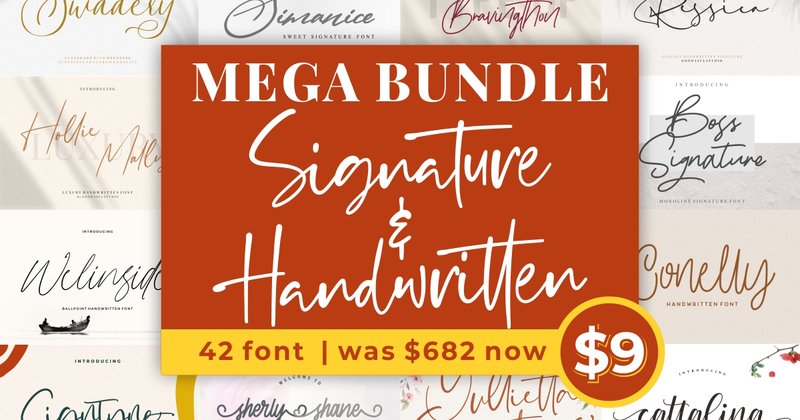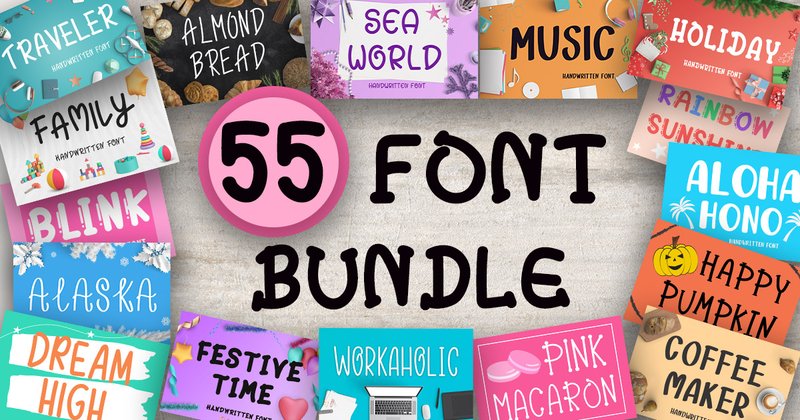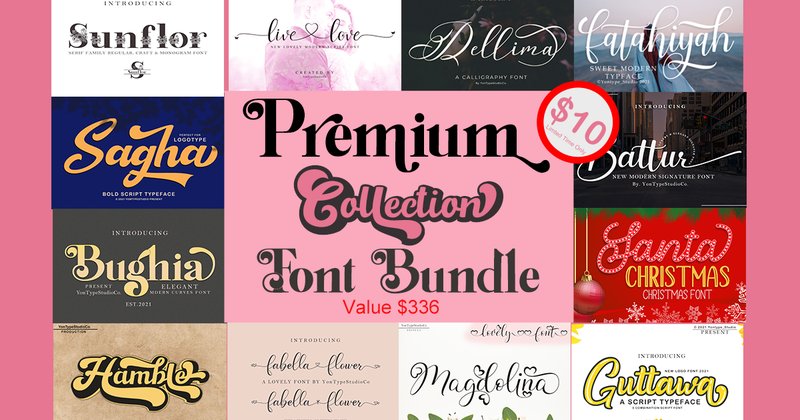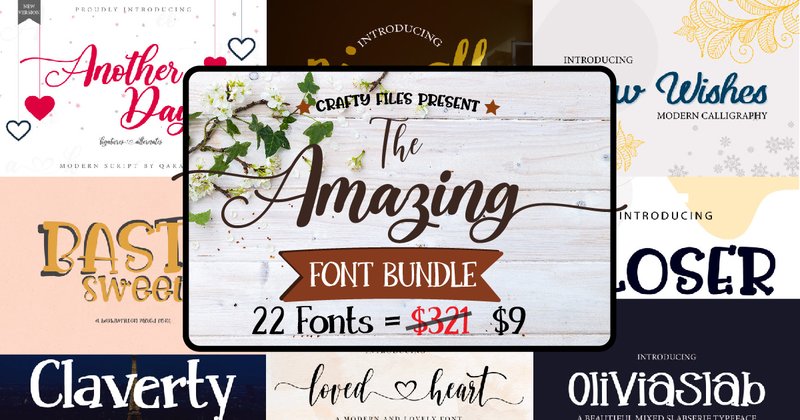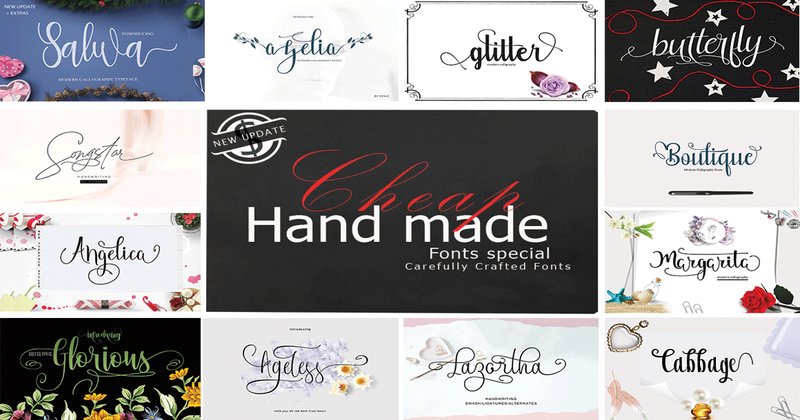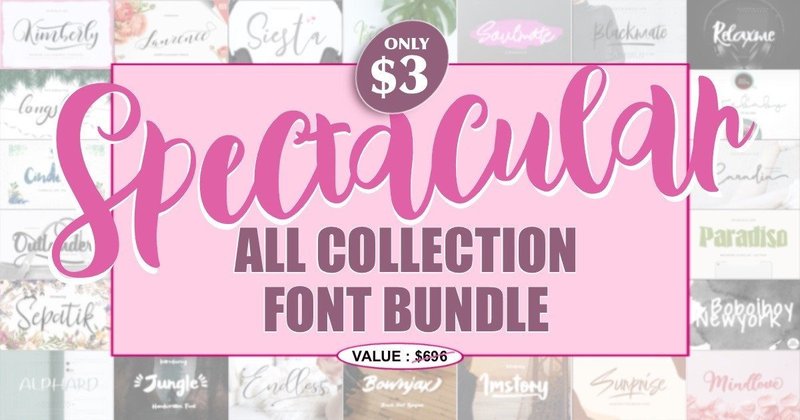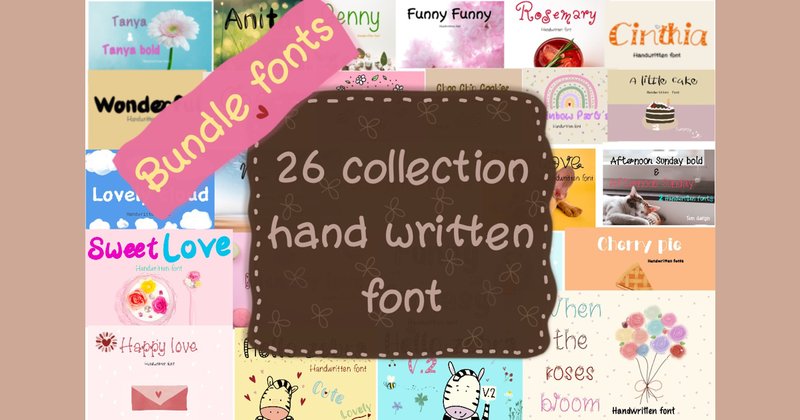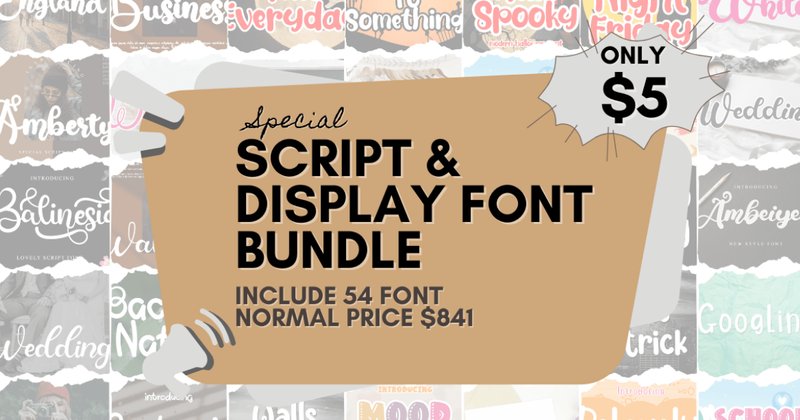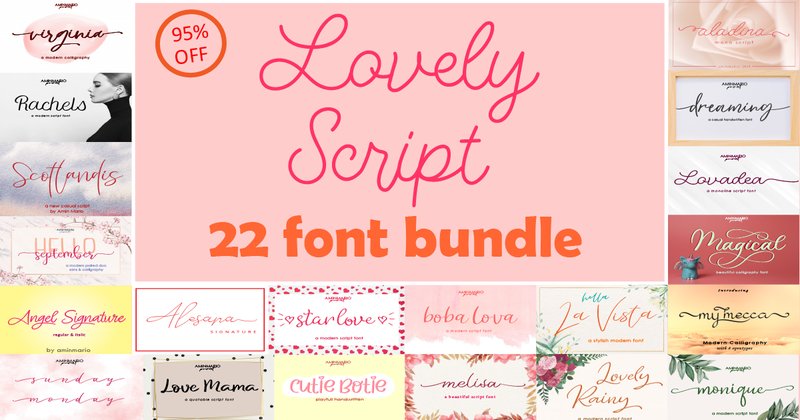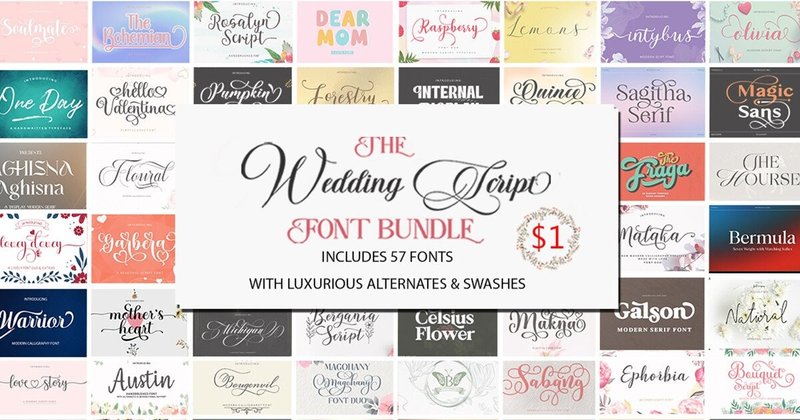
In the ever-evolving design landscape of 2026, the demand for authenticity and a handcrafted feel is stronger than ever. This is where script fonts truly shine, adding a touch of elegance, personality, and human connection to any project. From sophisticated branding and romantic wedding invitations to engaging social media content and unique DIY crafts, the right script font can make all the difference. To help you find the perfect match, we’ve curated a comprehensive list of the 38 most popular and stunning script font bundles available right now. These collections are packed with value and are trending for a reason.
1. Mega Script & Handwritten Fonts Bundle (by goodjavastudio)
Mega Script & Handwritten Fonts Bundle (by goodjavastudio) Good Java Studio consistently delivers fonts that feel both personal and polished, and this mega-bundle is a testament to their craft. It’s a treasure trove of 42 handwritten and signature scripts, each radiating a distinct, organic warmth that’s often missing in digital typography. From flowing, elegant letterforms perfect for upscale branding to casual, friendly scripts that add a touch of authenticity, this collection provides an incredible range of tools for designers seeking to infuse their work with a genuine, human feel. The sheer value and variety make it an indispensable resource for any modern creative toolkit.
- A curated mix of elegant signature styles and casual, organic scripts.
- Creating sophisticated branding and personal logo marks.
- Designing elegant wedding invitations and custom stationery.
- Adding an authentic touch to social media graphics and quote posts.
2. Big Fonts Bundle (by PearlyDaisy)
Big Fonts Bundle (by PearlyDaisy) embraces the warmth and authenticity of handwritten typography, offering a comprehensive toolkit for designers who crave a personal touch. This expansive collection moves beyond generic type, providing 55 distinct fonts that feel both artisanal and professionally crafted. With a thoughtful mix of elegant scripts, charming handwritten styles, and bold display fonts, the bundle equips you to add a layer of bespoke character to any project, making it feel less like a digital asset and more like a piece of custom art.
- A curated mix of script, display, and handwritten styles
- Creating heartfelt branding for small businesses and Etsy shops
- Personalized DIY projects, from vinyl cutting to custom apparel
- Designing beautiful social media graphics and quote cards
- Crafting elegant wedding invitations and custom stationery
3. Premium Fonts Bundle (by YonTypeStudio.Co)
Premium Fonts Bundle (by YonTypeStudio.Co) feels less like a collection of digital files and more like opening a master calligrapher’s personal sketchbook. Each script font flows with the organic, imperfect grace of authentic handwriting, bringing a deeply personal and elegant touch to any project. This isn’t just about typography; the inclusion of beautiful, hand-drawn graphics turns this bundle into a cohesive design system, perfect for creators who want to build a sophisticated and handcrafted aesthetic from the ground up.
- A versatile collection of elegant and modern script fonts
- Includes a bonus set of beautiful, complementary graphics
- Designed with natural-looking ligatures and stylistic alternates for an authentic feel
- Crafting sophisticated wedding invitations and event stationery
- Designing high-end branding for lifestyle, beauty, or boutique brands
- Creating authentic-looking social media graphics and editorial headlines
- Adding a bespoke, handcrafted touch to packaging and product labels
4. The Amazing Fonts Bundle (by Crafty Files)
The Amazing Fonts Bundle (by Crafty Files) With a dynamic range of stroke widths that move from commanding bold scripts to delicate, romantic flourishes, this collection delivers a truly versatile typographic toolkit. The bundle masterfully balances vintage charm with a clean, modern finish, making its fonts feel both nostalgic and perfectly current. This inherent adaptability allows designers to craft everything from sophisticated wedding invitations to energetic t-shirt graphics, all while maintaining a cohesive and polished aesthetic.
- A diverse collection of script styles, including bold, romantic, elegant, and fun vintage aesthetics.
- Full PUA Unicode encoding ensures easy access to all alternate characters and swashes without specialized software.
- High-quality letterforms designed for excellent legibility across both digital and print applications.
- Includes a mix of elegant and playful typefaces suitable for a wide spectrum of design projects.
- Creating distinctive logos and branding for boutique businesses, cafes, and creative studios.
- Designing elegant event stationery, including wedding invitations, save-the-dates, and announcements.
- Producing eye-catching apparel, merchandise, and product packaging.
- Crafting compelling headlines for posters, social media graphics, and editorial layouts.